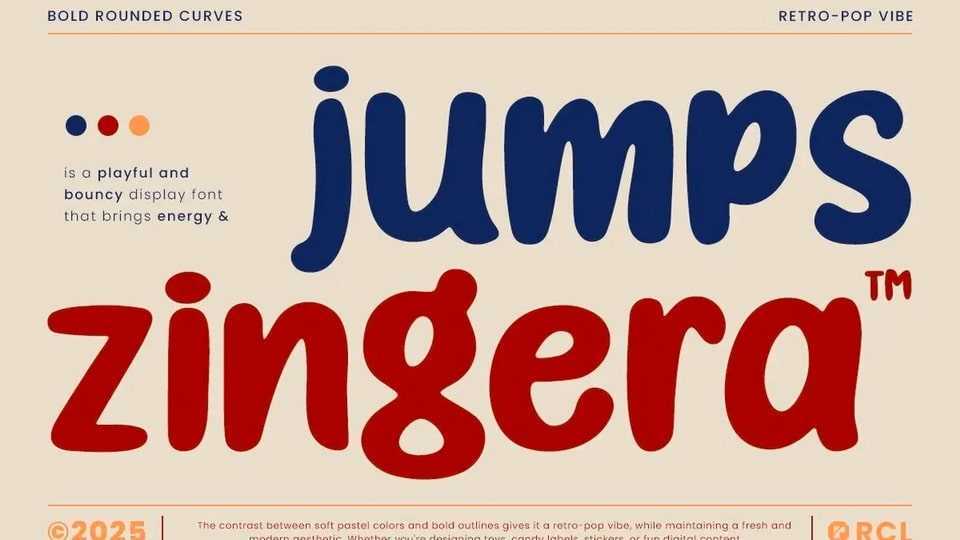
Download Jump Zingera font, a playful and bold display typeface packed with personality, curves, and retro-pop vibes and designed with smooth rounded forms and lively bounce.